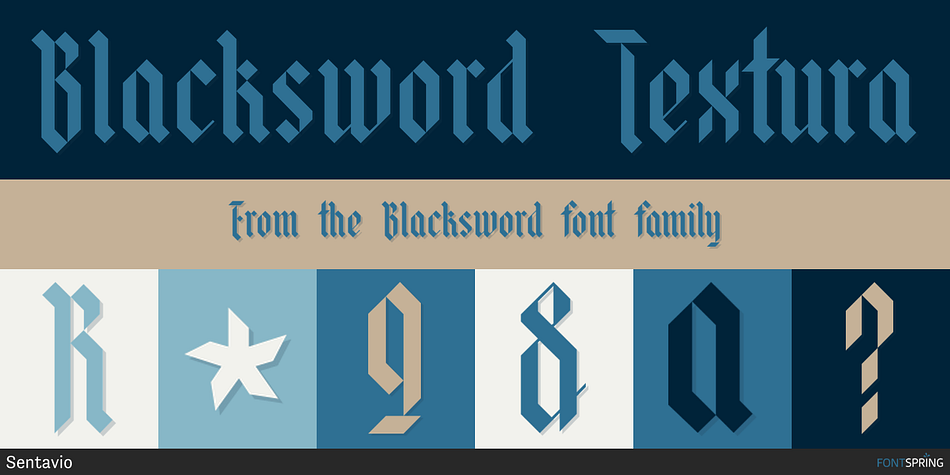
Blacksword Textura
Blacksword is a blackletter font family published by Sentavio.
Blacksword is an authentic classic blackletter gothic vintage font.
Well to use in Poster, Vintage Labels & Badges, Headline, Packaging Branding and much more.